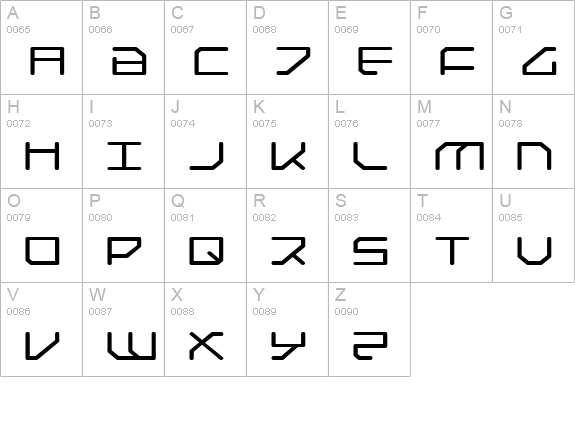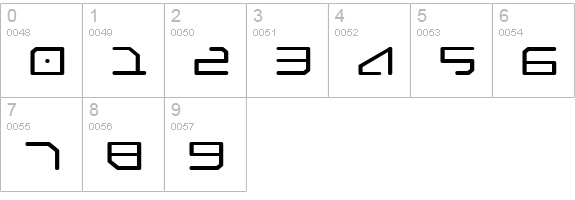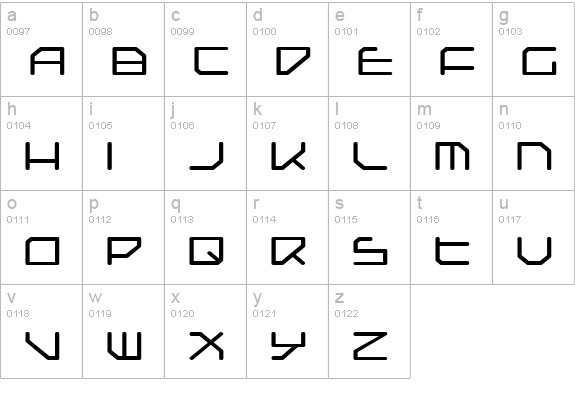
Federapolis Expanded is a distinctive, extended-width variant in the Federapolis typeface family \xE2\x80\x94 well suited to design and typography projects.
Federapolis Expanded font is a modern and versatile typeface that exudes sophistication and elegance. With its sleek design and clean lines, this font is perfect for a wide range of design projects, from branding to editorial design. The expanded version of Federapolis adds a touch of uniqueness and flair, making it stand out from the crowd. What sets Federapolis Expanded font apart is not only its stylish appearance but also its versatility. It can be used for headlines, body text, logos, and more, making it a valuable addition to any designer's toolkit. Whether you're working on a website, poster, or packaging design, Federapolis Expanded font will help you achieve a polished and professional look. The best part? Federapolis Expanded font is completely free to download at FontsMarket.com. This means you can start using it in your projects right away without having to worry about any licensing fees. Don't miss out on this fantastic opportunity to enhance your designs with the sleek and sophisticated Federapolis Expanded font. Download it now and see the difference it can make in your work!